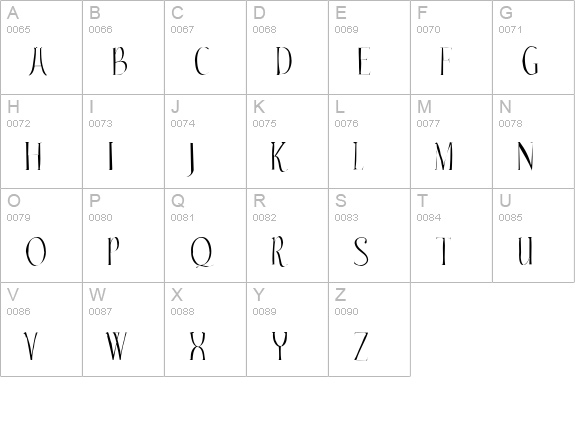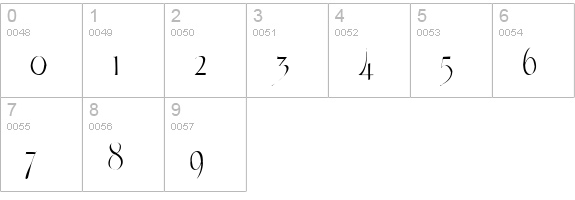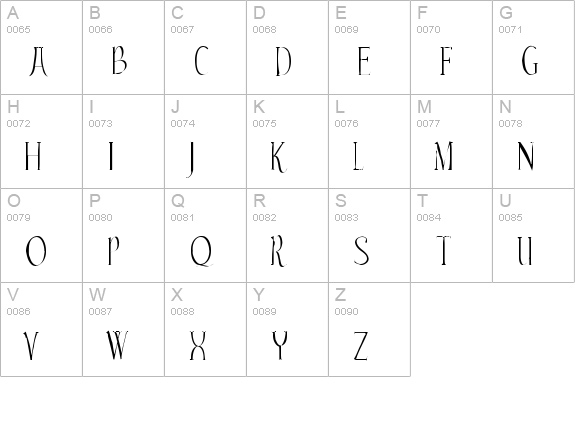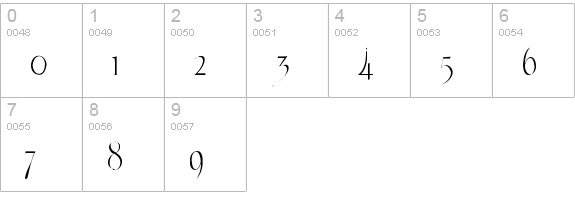
Echelon Gaunt font is a sleek and modern typeface that exudes elegance and sophistication. Its tall, slender letterforms create a sense of refined beauty, making it perfect for luxury branding, editorial design, and more. With its clean lines and distinctive style, Echelon Gaunt font adds a touch of class to any project. And the best part? Echelon Gaunt font is completely free to download at FontsMarket.com. Whether you're a designer looking to elevate your work or a business owner in need of a standout font for your branding, Echelon Gaunt font is the perfect choice. Download it today and add a touch of sophistication to your designs.